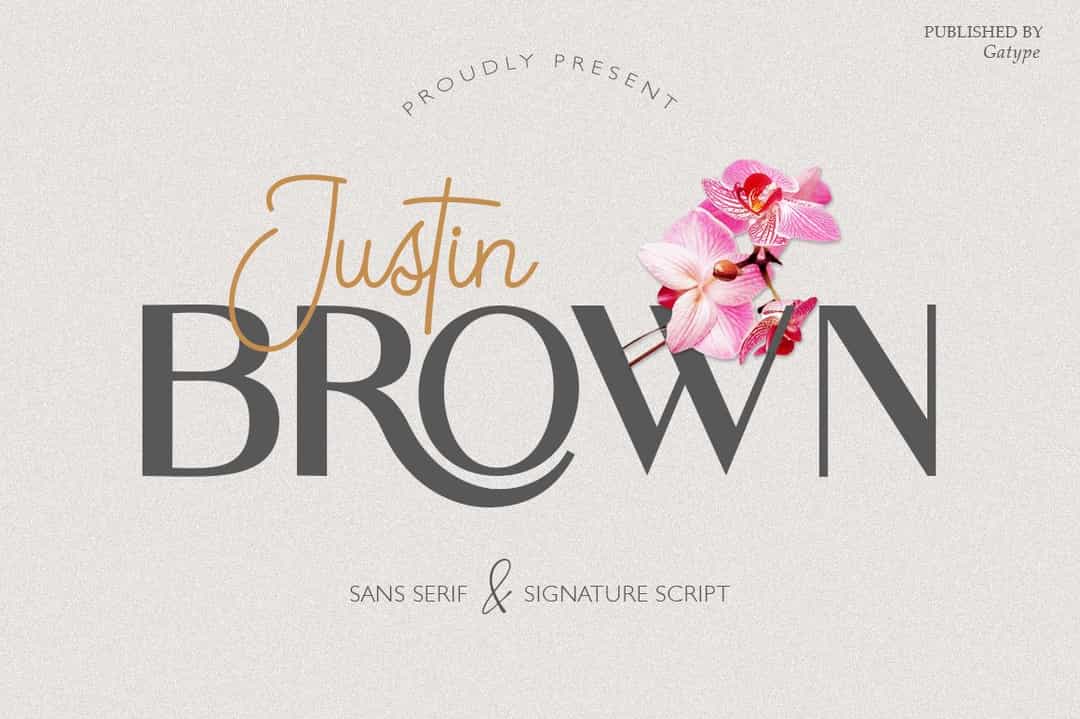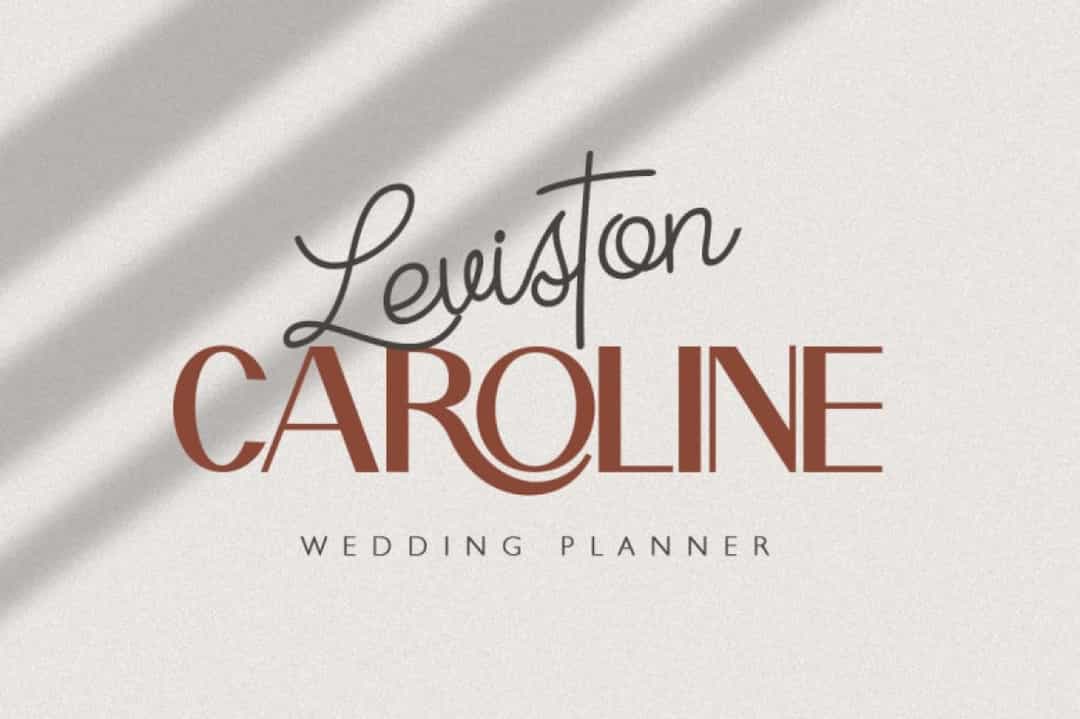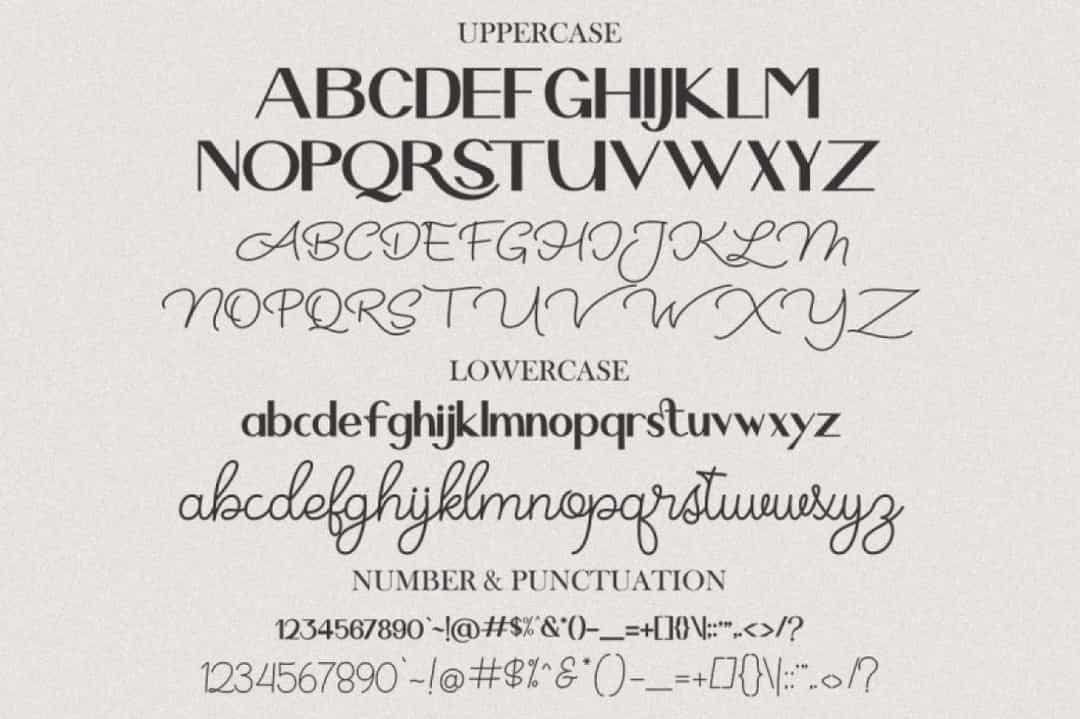
Justin Brown is an elegant combination of fonts (sans serifs and signature scripts), that offers a distinct and luxurious aesthetic in any design project. The font looks beautiful on any display size and is easy to read across multiple text sizes; additionally it provides ample alternatives and binder for creating beautiful artworks.